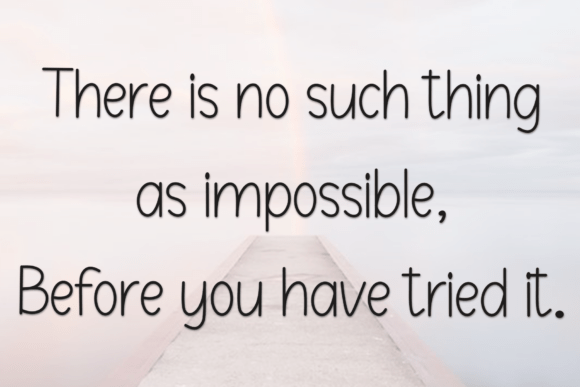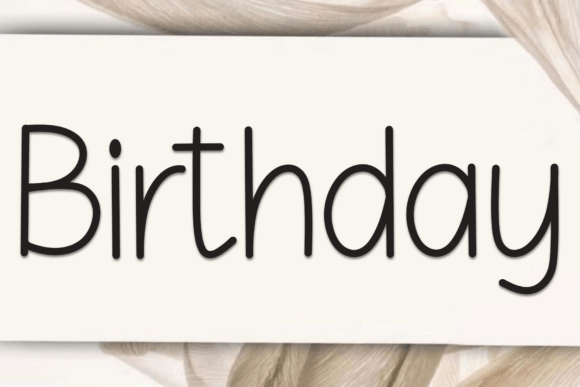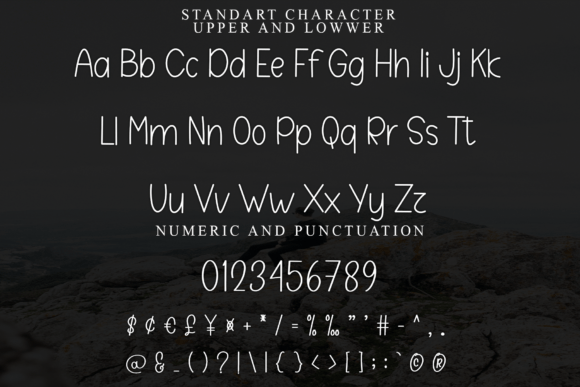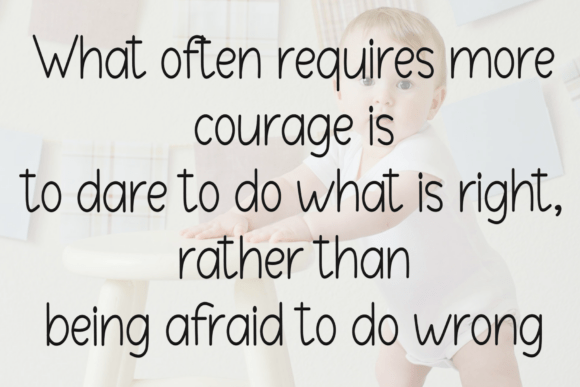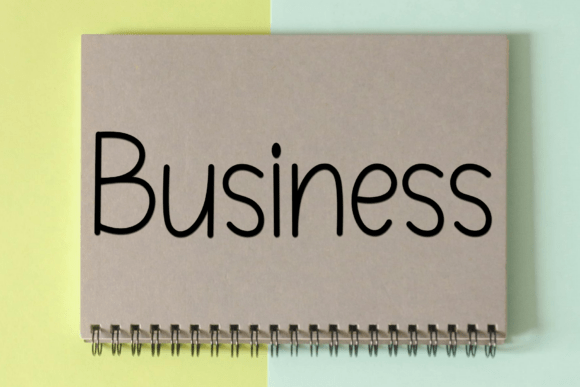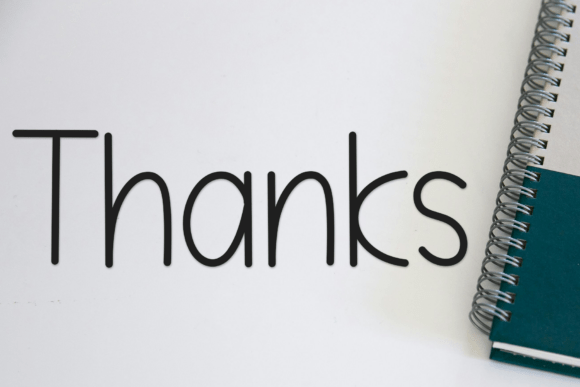
Discover the Unique Charm of Homestay Font
There’s something magical about stumbling upon a font that perfectly captures the essence of a project. For designers, it’s a moment of pure joy – the spark that ignites creativity and sets the tone for a stunning visual experience. Imagine finding a font that effortlessly conveys warmth, personality, and style, elevating your designs from good to extraordinary. Welcome to the enchanting world of Homestay Font, a beautifully crafted typeface designed to add a touch of magic to your creative endeavors.
With its soft, unique strokes and distinctive character, Homestay Font is the perfect companion for designers seeking to infuse their work with a personal touch. Whether you’re working on a branding project, crafting a digital asset, or designing a print material, this versatile font is sure to impress. Its compatibility with various applications, including Windows and open-source platforms, makes it an invaluable asset for designers of all levels.
Key Features of Homestay Font
- Font Family: Homestay Font is a unique, modern sans-serif font with a warm and inviting feel.
- Unique Characteristics: Homestay Font features a distinctive x-height, open apertures, and a subtle rounded feel, making it perfect for branding and editorial design.
Designer Review: Homestay Font
Overall, I’m quite impressed with the Homestay Font. ✨ It’s a beautiful, modern sans-serif typeface that’s perfect for a variety of design projects. The font is highly legible and has a clean, minimalist aesthetic that works well in both print and digital applications.
- ✨ Elegant and modern design: The Homestay Font has a sophisticated look that’s sure to elevate any design project.
- ✨ Highly legible: The font is easy to read, even at small font sizes.
- ✨ Versatile: The Homestay Font works well in a variety of contexts, from business cards to website headers.
- ⚠️ Not suitable for body text: While the Homestay Font is great for headings and titles, it may not be the best choice for large blocks of body text.
Overall, I think the Homestay Font is a great addition to any designer’s toolkit. While it may have some limitations, its elegant design and high legibility make it a versatile and effective choice for a variety of design projects.